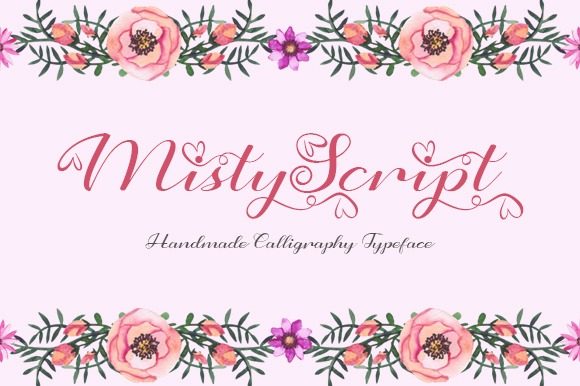
Immerse yourself in the artistry of Misty Script, a captivating handwritten font that dances across your designs with a bohemian flair. Inspired by the beauty of calligraphy, each letter is a work of art, flowing gracefully with delicate strokes and charming imperfections. Unleash your creativity and transform your projects with the organic elegance of Misty Script.
Step into a world of enchantment where every word whispers a story. Misty Script's dancing baseline adds a touch of whimsy to your designs, creating a captivating flow that draws the eye and captivates the imagination. Let your words take center stage, adorned with the artistry of Misty Script.
With its decorative characters, Misty Script adds a touch of sophistication and charm to your creations. From elegant wedding invitations to whimsical branding materials, this font elevates your designs with a unique and unforgettable touch. Let Misty Script be your creative companion, guiding you on a journey of artistic expression.
Unleash your inner artist and embrace the beauty of hand-lettering. Misty Script is the perfect font for those seeking a touch of authenticity and individuality. Its handwritten style breathes life into your designs, making them truly captivating. Join the creative revolution and let Misty Script transform your projects into masterpieces.